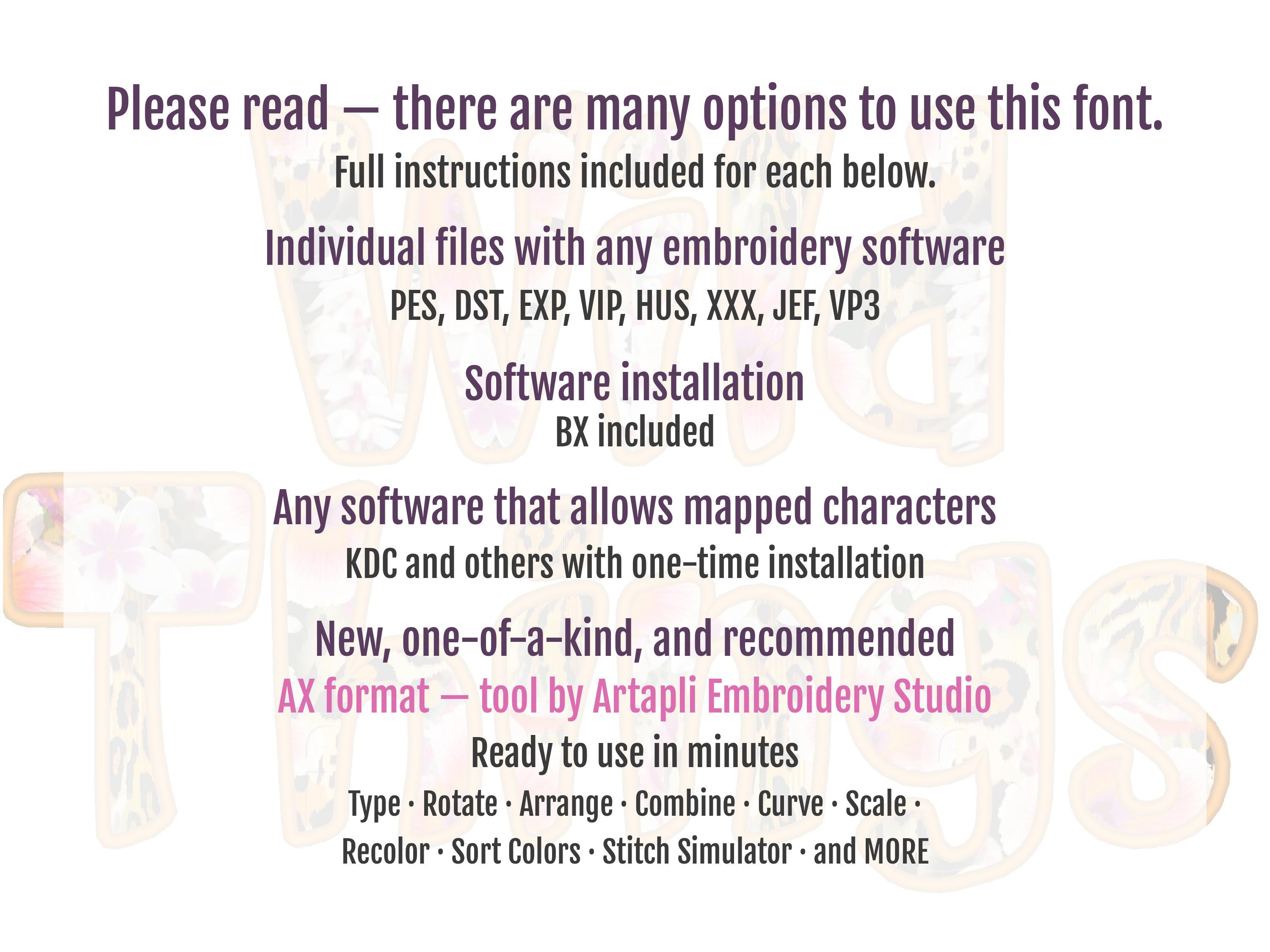
Monogram applique Font, kids funny font applique machine embroidery designs, alphabet letters sizes from 2, 2.5, 3, 4, 4.5 inches, BX included
Uppercase and lowercase letters.
I have not placed it on an actual garment yet, but the samples I have made are nice. It is a really cute font and easy to work with. It stitches out beautifully.
I used this with vinyl. Looks great.